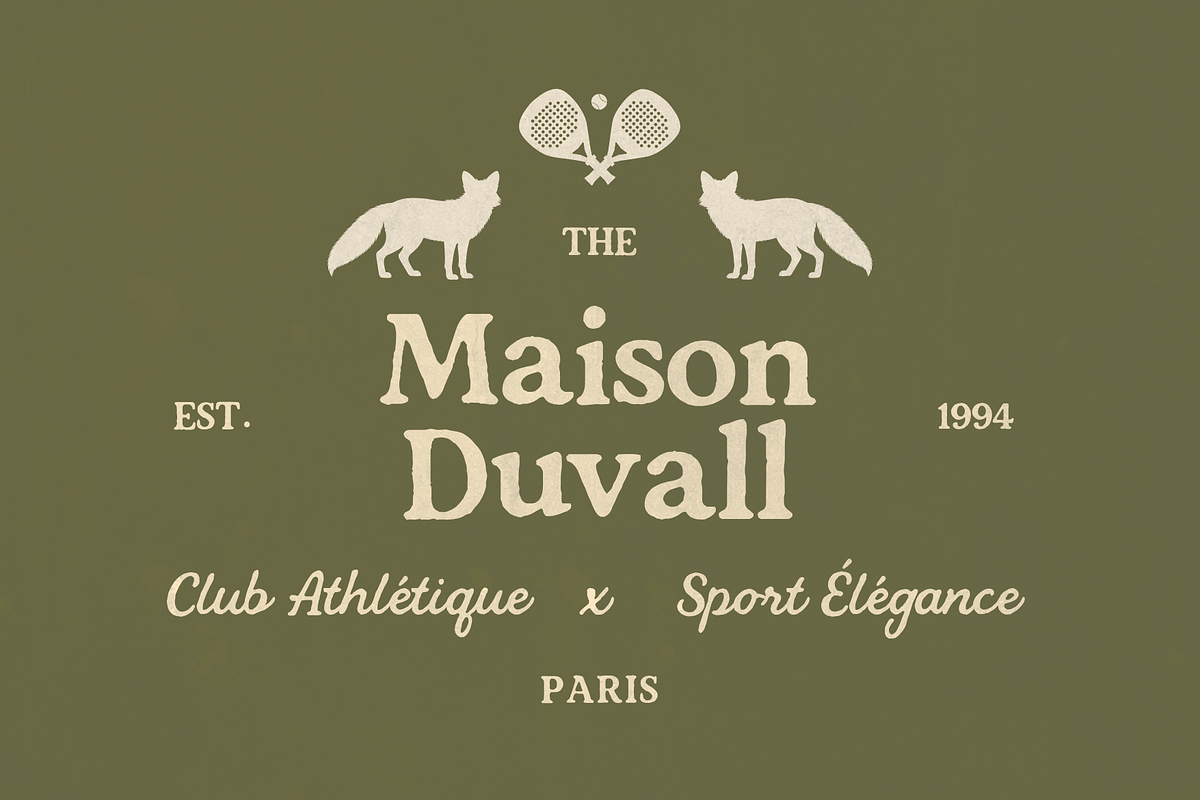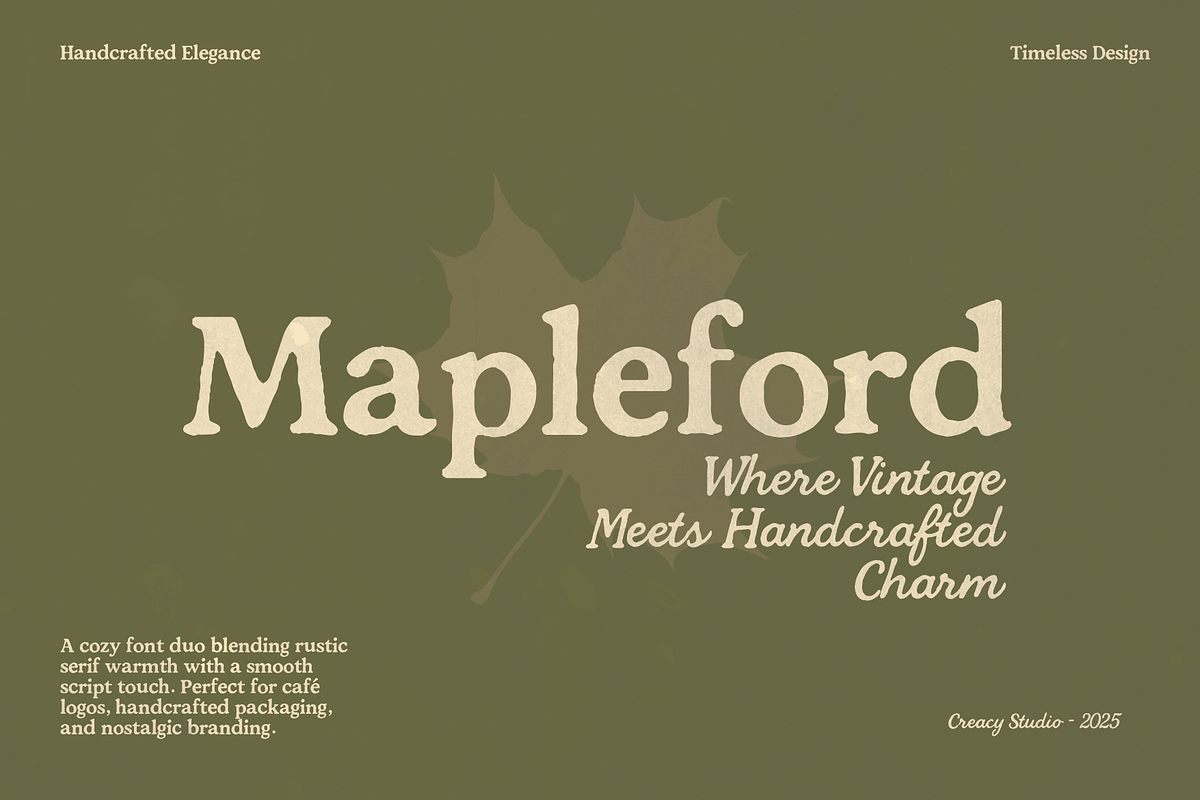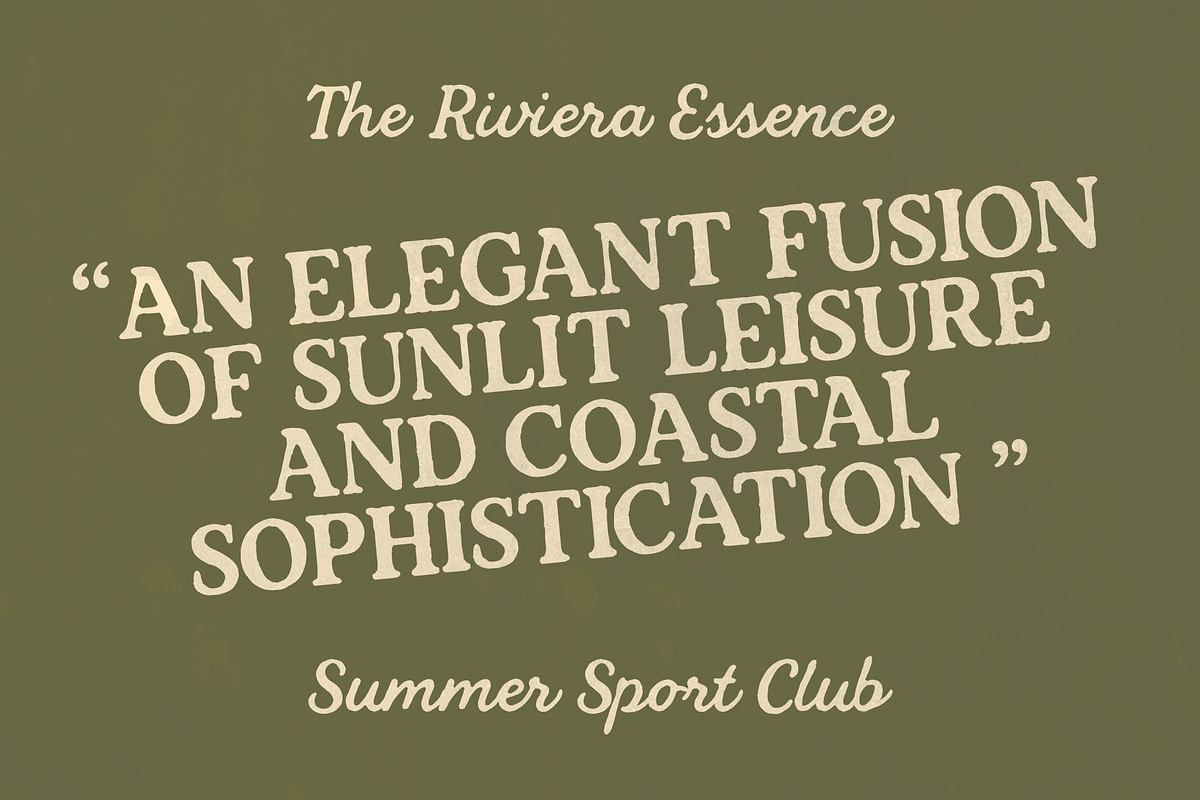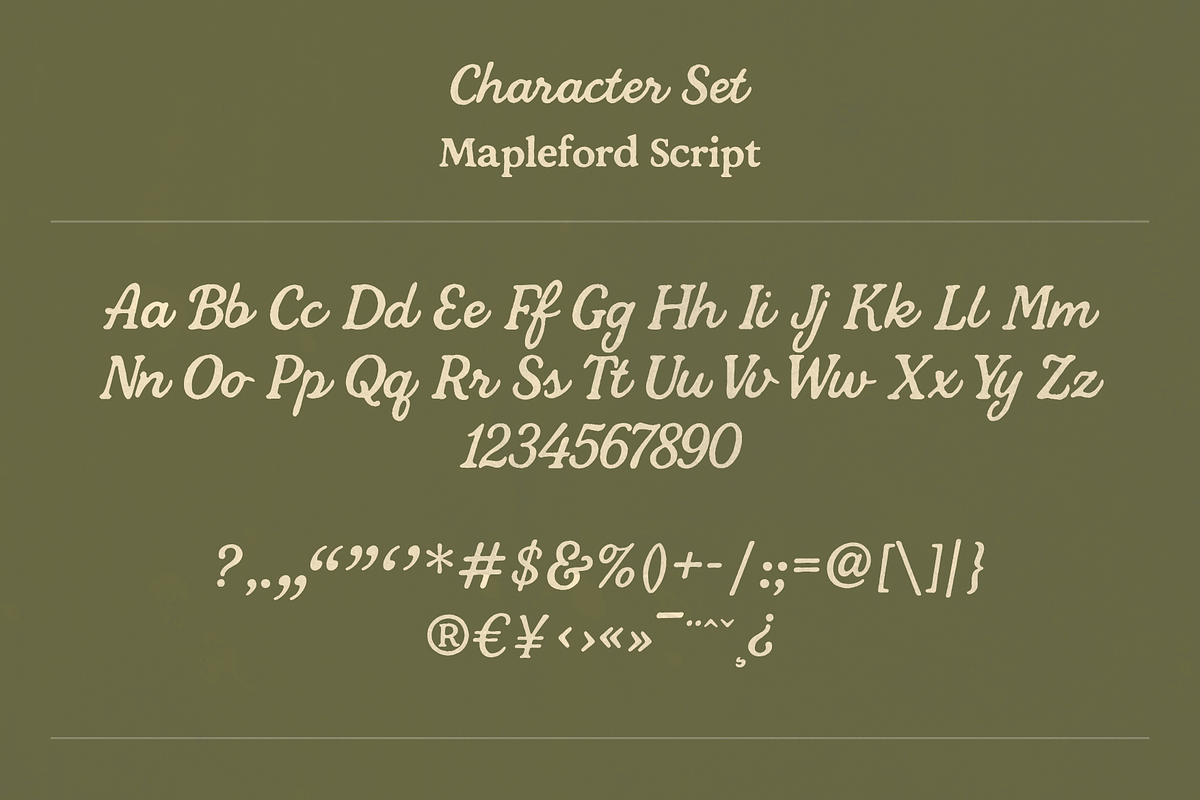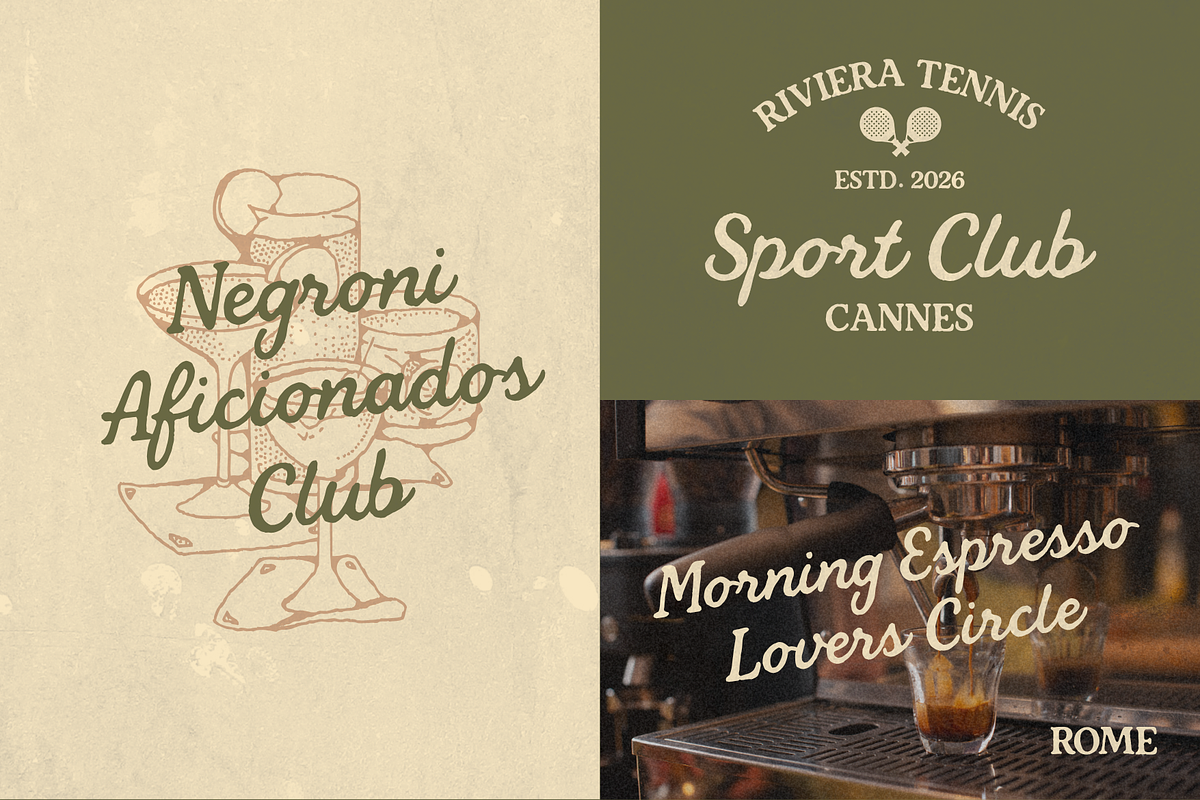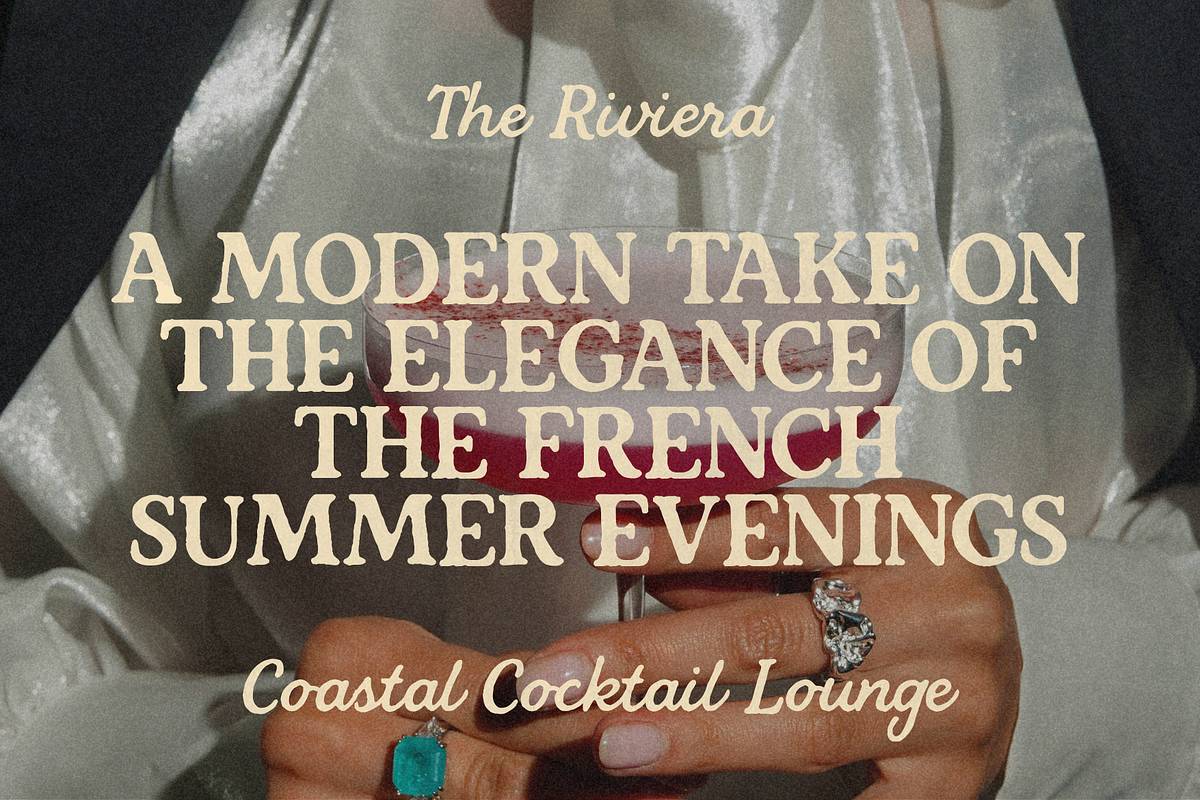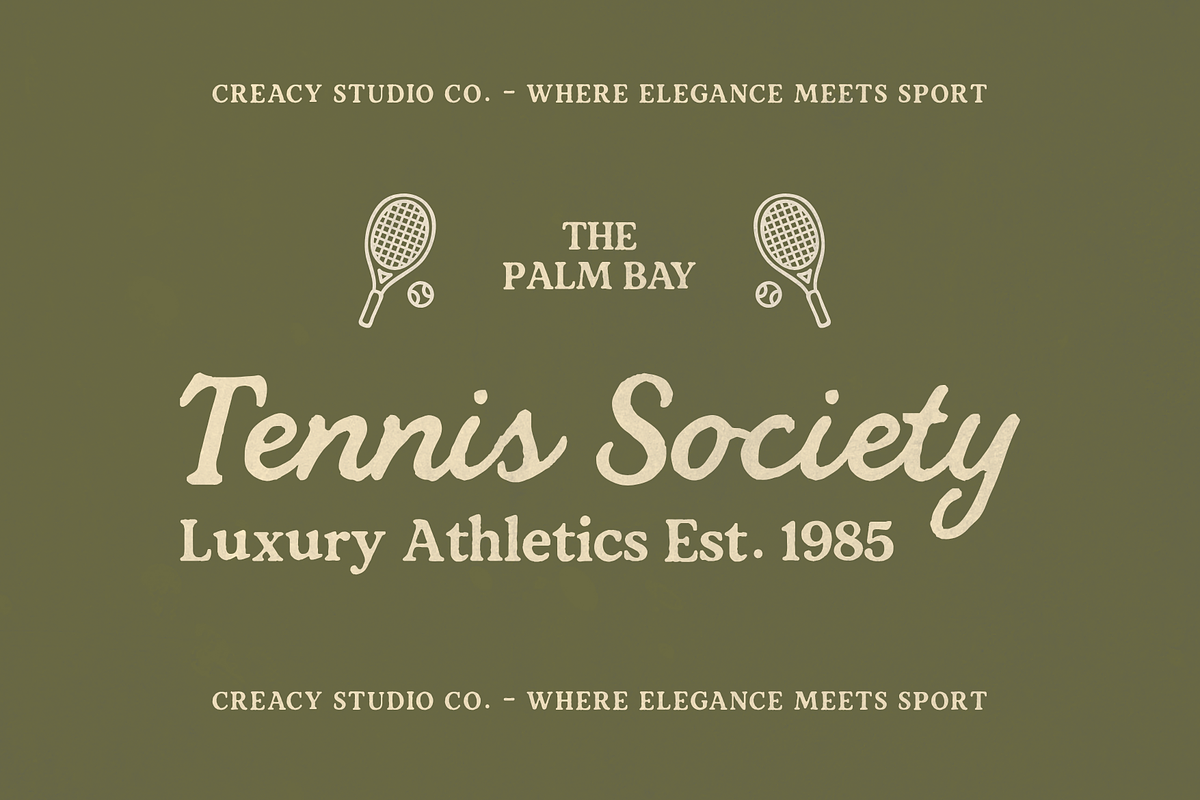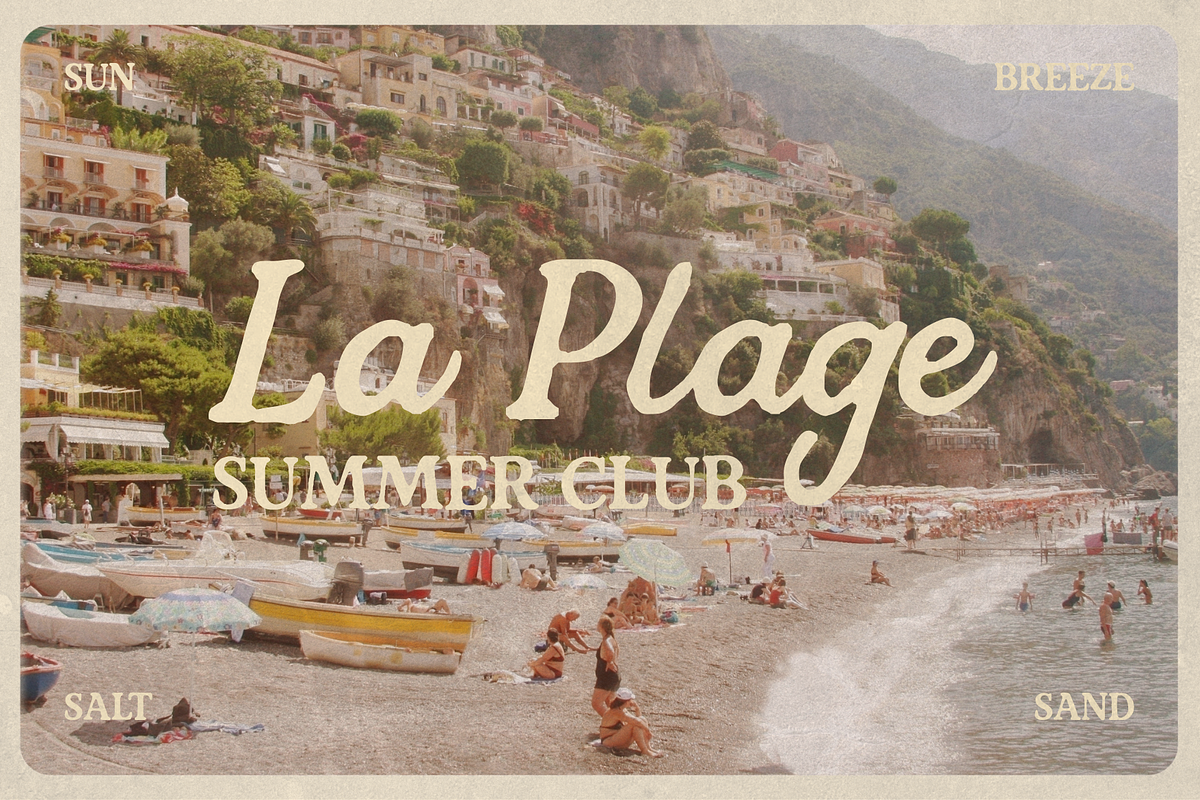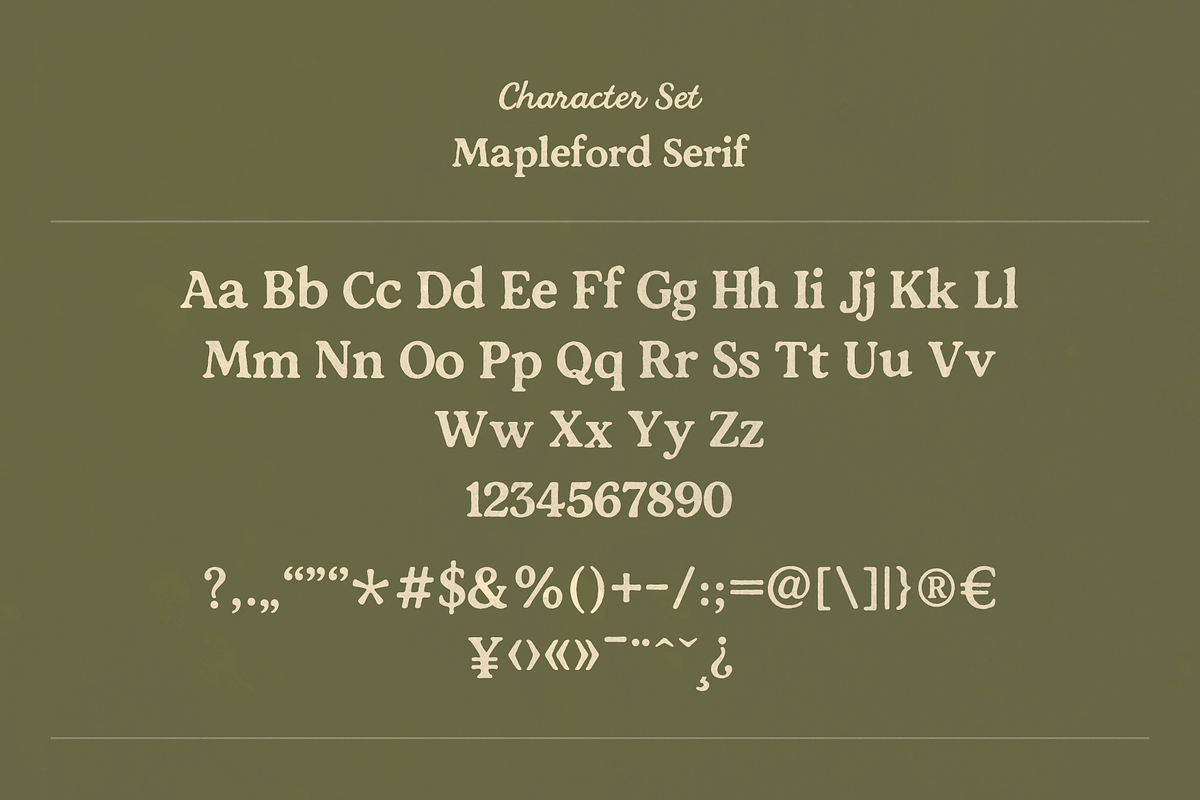
Mapleford – Handcrafted Font Duo
Mapleford – Handcrafted Serif & Script Font Duo
Where Vintage Meets Handcrafted Charm Mapleford is a cozy font duo that blends rustic serif warmth with a smooth script touch — evoking the nostalgic charm of handcrafted cafés, summer markets, and timeless leisure clubs.
Each letter carries a subtle texture and organic rhythm, bringing character and authenticity to your designs. Mapleford feels equally at home on café logos, sport club insignias, vintage packaging, or coastal-inspired branding.
- Two fonts included: Mapleford Serif & Mapleford Script
- Timeless handcrafted texture
- Perfect pairing for nostalgic or luxury sports aesthetics
Perfect for
- Café & Bistro Branding
- Coastal Lifestyle & Summer Clubs
- Handcrafted Packaging
- Editorial & Magazine Titles
- Boutique Logos
- Vintage-Inspired Social Media Designs
Designed with care by Creacy Studio – 2025 Handcrafted Elegance. Timeless Design.